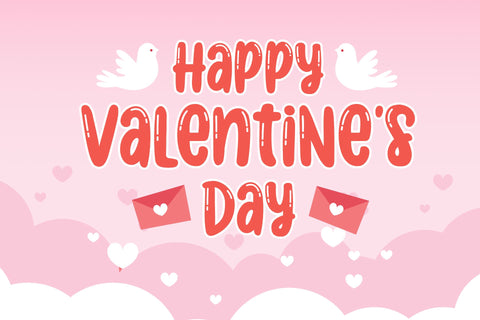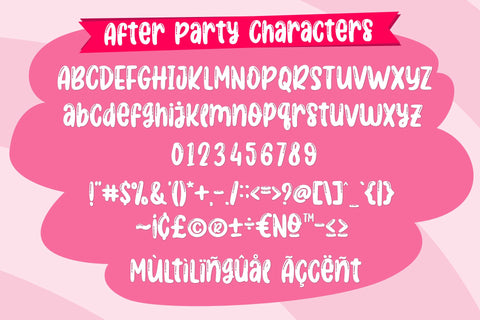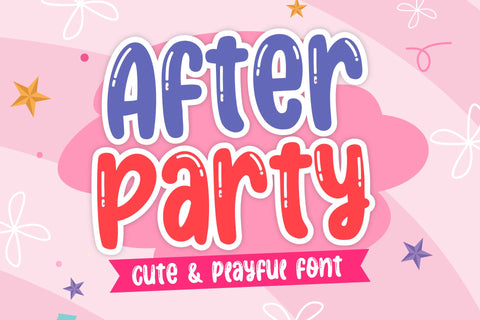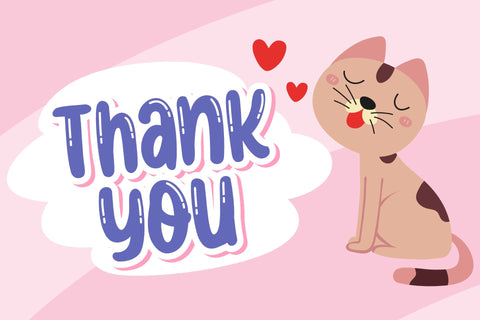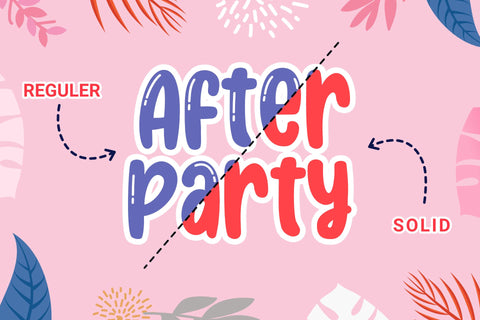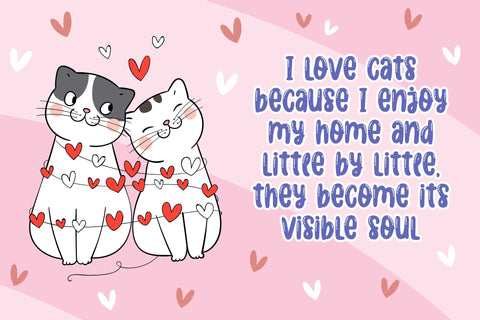
After Party Font
After Party is an adorable and playful display font. It will add an incredibly joyful touch to your crafting designs, school projects and anything else that may need a happy touch!